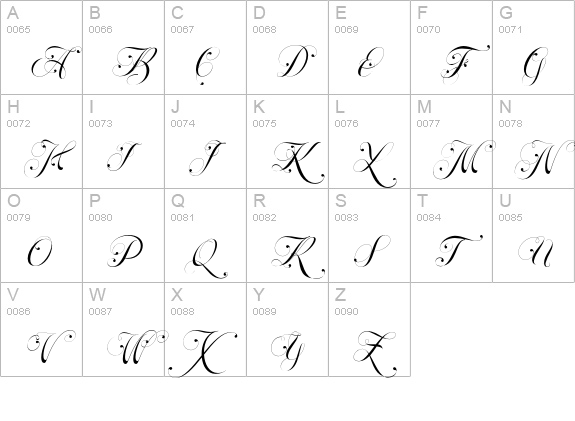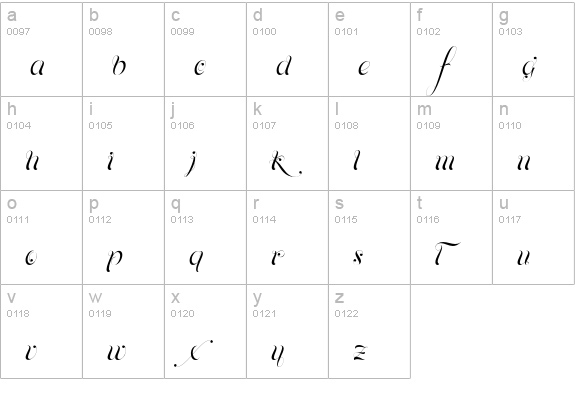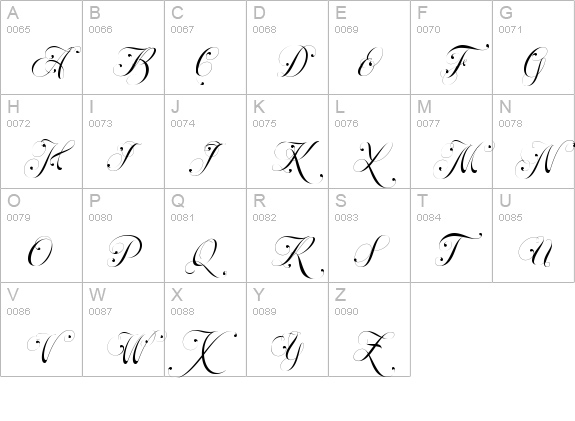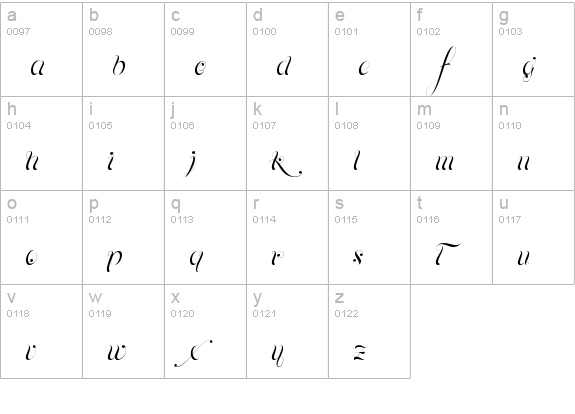
Parfait Script Pro Font Details
Parfait Script Pro is an elegant and sophisticated font that exudes a sense of charm and grace. With its fluid and delicate strokes, this script font is perfect for adding a touch of luxury to your designs. Whether you're working on wedding invitations, branding projects, or any other creative endeavor, Parfait Script Pro will elevate your work to the next level. What sets Parfait Script Pro apart is not only its beauty but also the fact that it is completely free to download. Yes, you read that right - this stunning font is freely available at FontsMarket.com, allowing you to access its timeless elegance without any cost. So go ahead and enhance your projects with the beauty of Parfait Script Pro today!